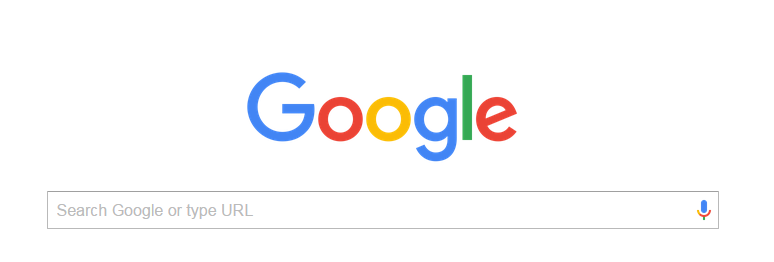
🐱 google's new font
wtf is this shit
Reminds me of
Or some other type of logo I'd see engraved into a neon plastic kid's toy.
Also the 'e' at the end is crooked and it is triggering me. Switching to DuckDuckGo.
In tabs it's an icon of a rainbow G. Which is probably gay.
Call me old fashioned, but the serifs implied some air of legitimacy or the kind of trustworthiness of an old and well-established business. Even when others were changing their logos to match fads at the time, theirs remained static. Kinda crummy to see it go, now it looks like "every other logo".
Is YouTube the only one now that hasn't changed their logo in a number of years? I don't think I can recall any other "big internet" business retaining their old one.
When Windows Office changed their font in 2008 to a san-serif it was a statement that we are entering the age of the computer, I assume this is the same statement google is trying to give.